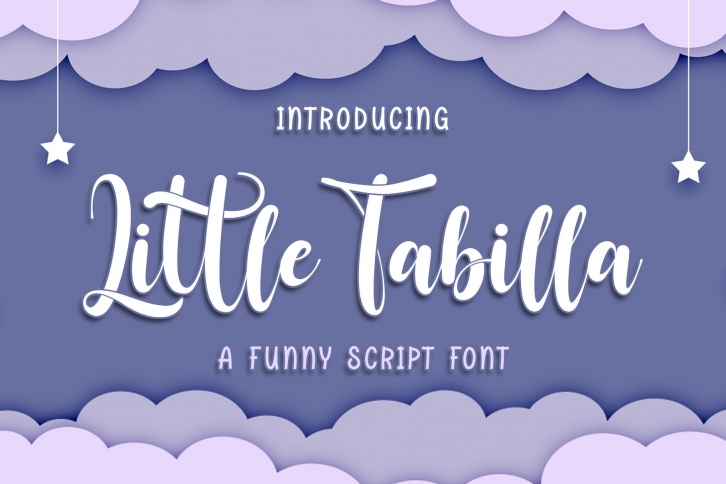
Little Tabilla is a great font that was designed by Rochart. Imagine the amount of combinations you can create using this font! The archive is 11.14 MB and it was released on June 18, 2020. Little Tabilla looks beautiful on wedding invitations, greeting cards, logos, posters, labels, t-shirt designs, logos, business cards and is perfect for use in ink or watercolor works, fashion, magazines, packaging and food menus, children's books and more!